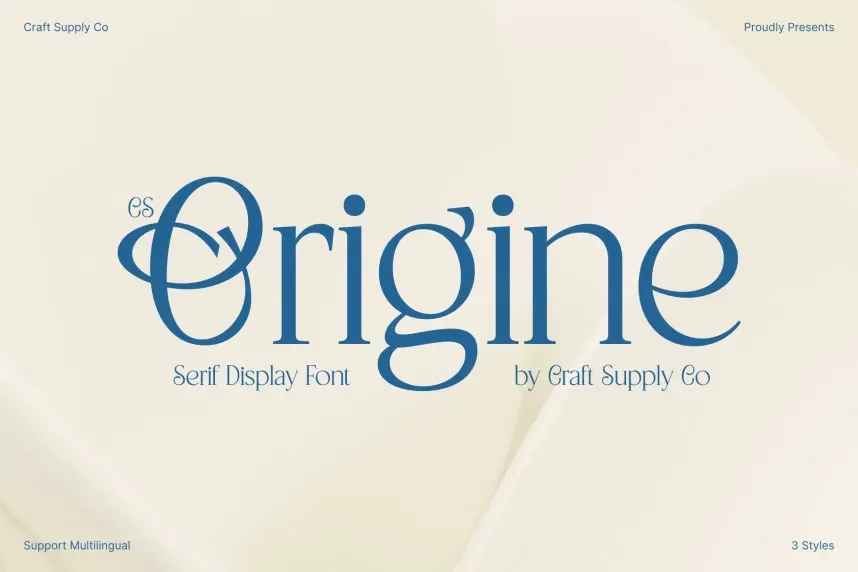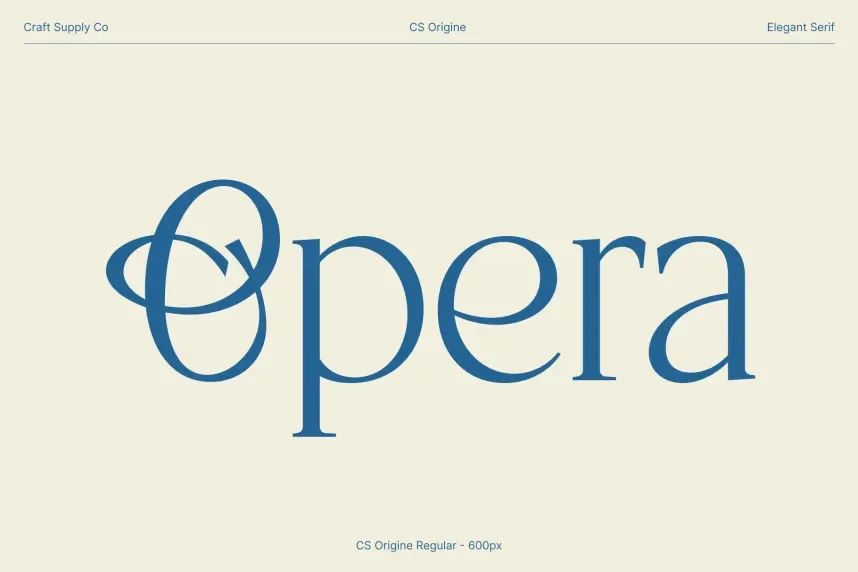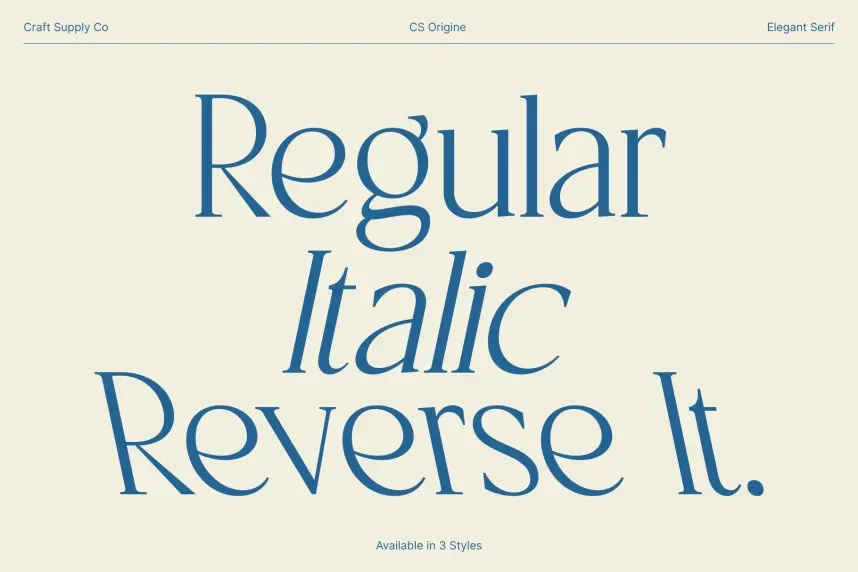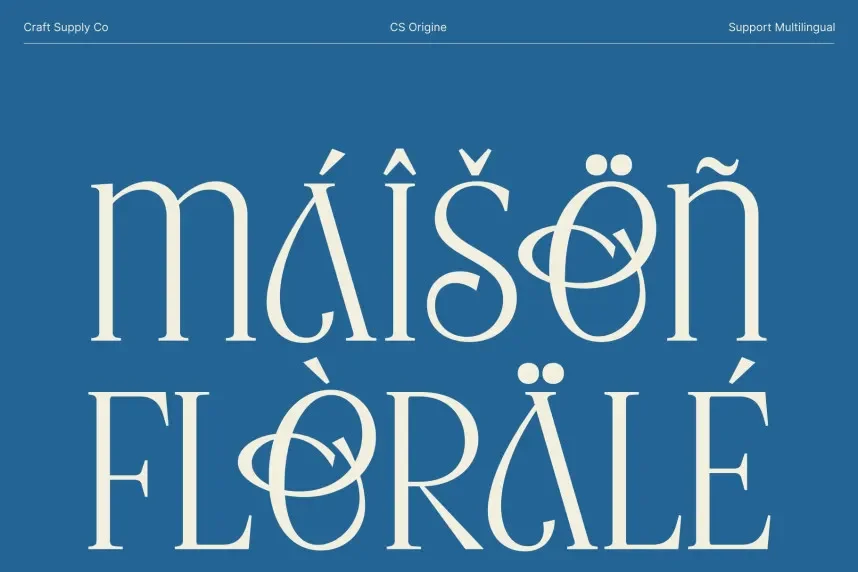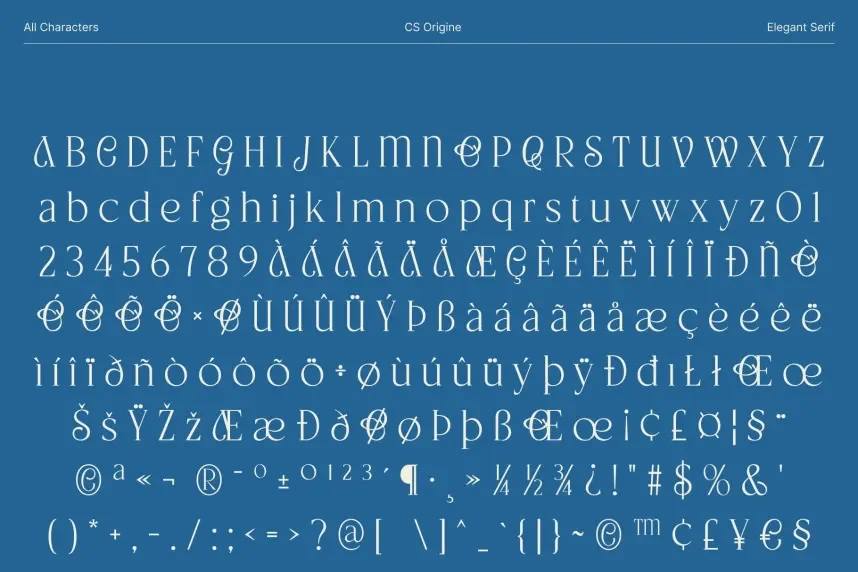
CS Origine Font addresses the need for a versatile, elegant serif font that works well in both digital and print applications. It is ideal for designs that require a formal, professional look without being overly complex.
CS Origine is a serif typeface featuring classic letterforms with sharp serifs, balanced stroke contrast, and refined proportions. The font combines traditional characteristics with modern clarity, ensuring readability in both large and small sizes. Its elegant design makes it perfect for high-end branding and editorial projects.